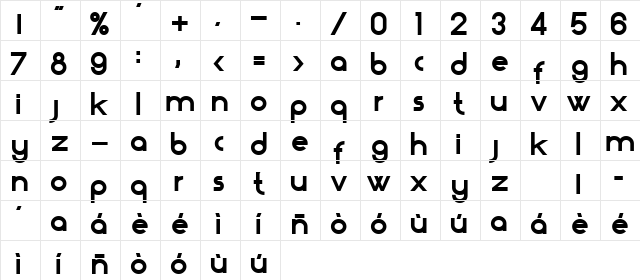
ZARAUTZ Bold
ZARAUTZ takes a measured approach to typography — its balanced proportions and neutral character make it a reliable workhorse for both digital and print work. Its bold stroke weight gives it real presence on the page.